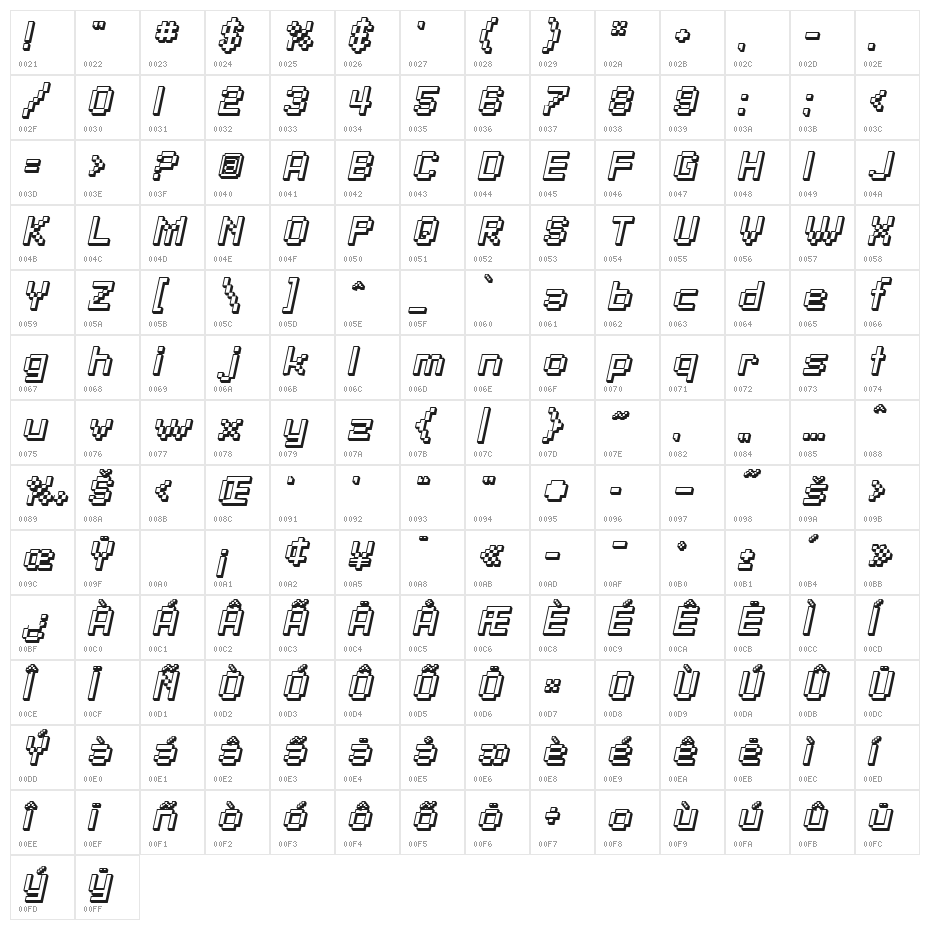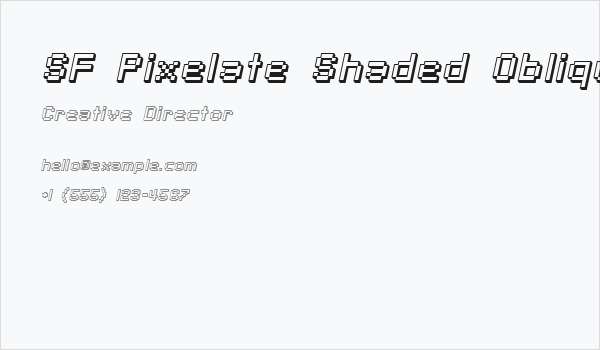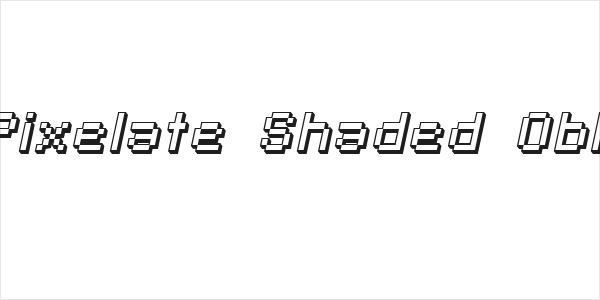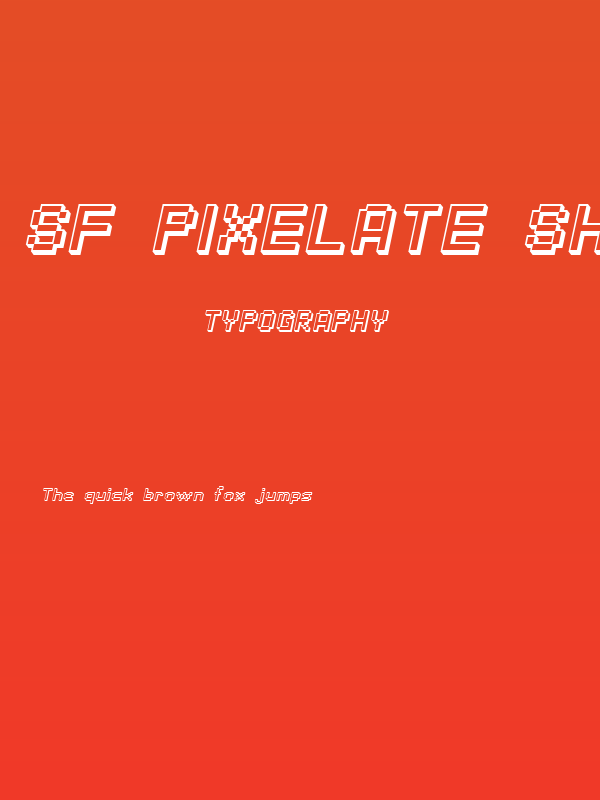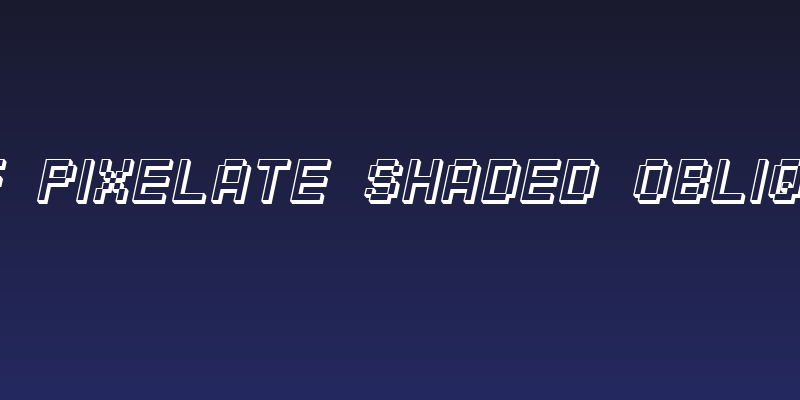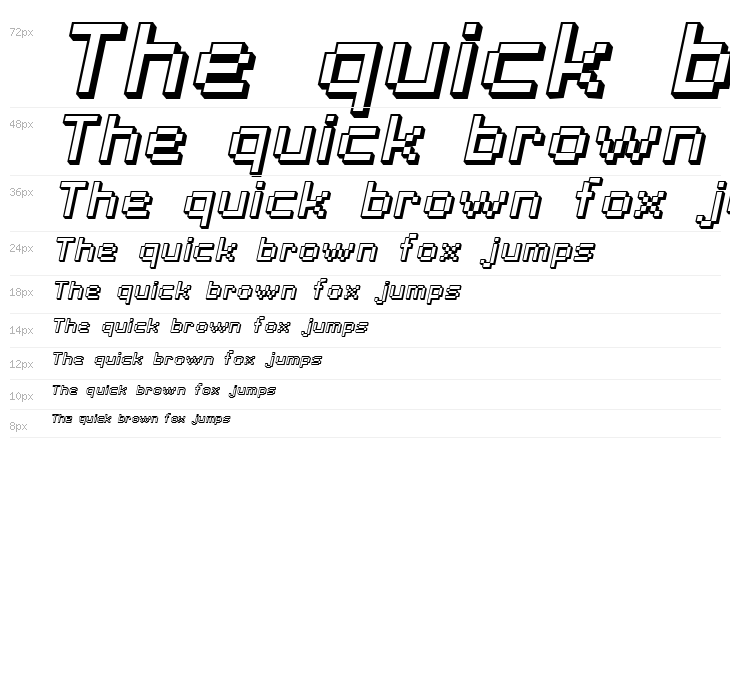
SF Pixelate Shaded Oblique Font
SF Pixelate Shaded Oblique Description
This font features a pixelated, shaded design with an oblique slant, giving it a dynamic and modern appearance. The characters are outlined with a bold black line, creating a three-dimensional effect that mimics the look of classic video game graphics. The uppercase and lowercase letters maintain a consistent style, with sharp angles and a blocky structure. The numerals and special characters follow the same design principles, ensuring a cohesive look across all glyphs. This font is ideal for projects that aim to evoke a sense of nostalgia or a retro-futuristic aesthetic.
Overall StyleRetro, Modern
Proposed ProjectsIdeal for video game design, retro-themed posters, digital art, and tech branding.